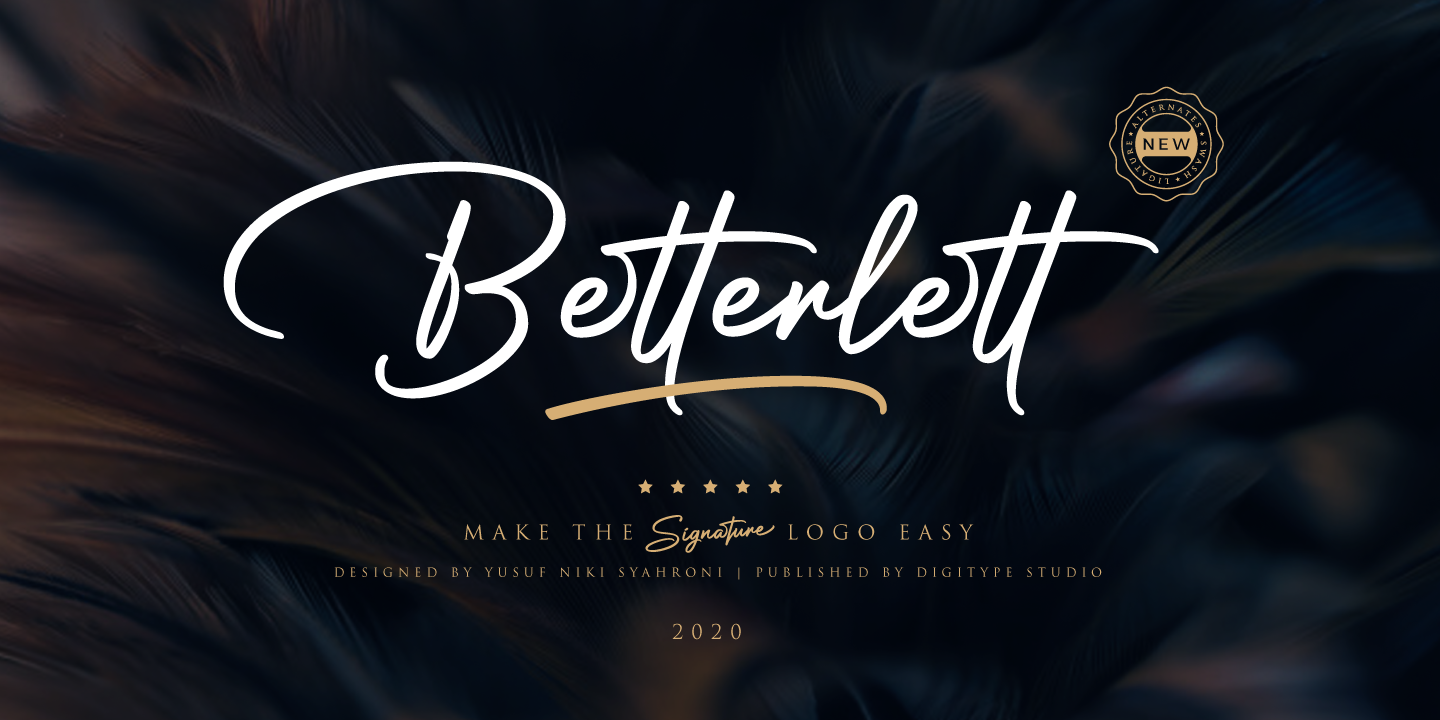
Betterlett Font Free Download is a stylish and elegant typeface that brings a modern calligraphy touch to your creative designs. Perfect for wedding invitations, logos, greeting cards, and branding materials, this font combines sophistication with a personal handwritten feel. The smooth curves and graceful letterforms make Betterlett Font ideal for projects that need a romantic or luxurious vibe.
With Betterlett Font Free Download, you get a versatile font that includes uppercase, lowercase, numerals, and essential punctuation marks. Its flowing style ensures readability while maintaining an artistic flair, making it suitable for both digital and print applications. Whether you’re designing social media posts, product packaging, or custom stationery, Betterlett Font adds a unique charm to your work.
Upgrade your design toolkit with Betterlett Font Free Download and create stunning visuals that leave a lasting impression. This beautiful script font is perfect for adding a personal, handcrafted touch to any creative project.